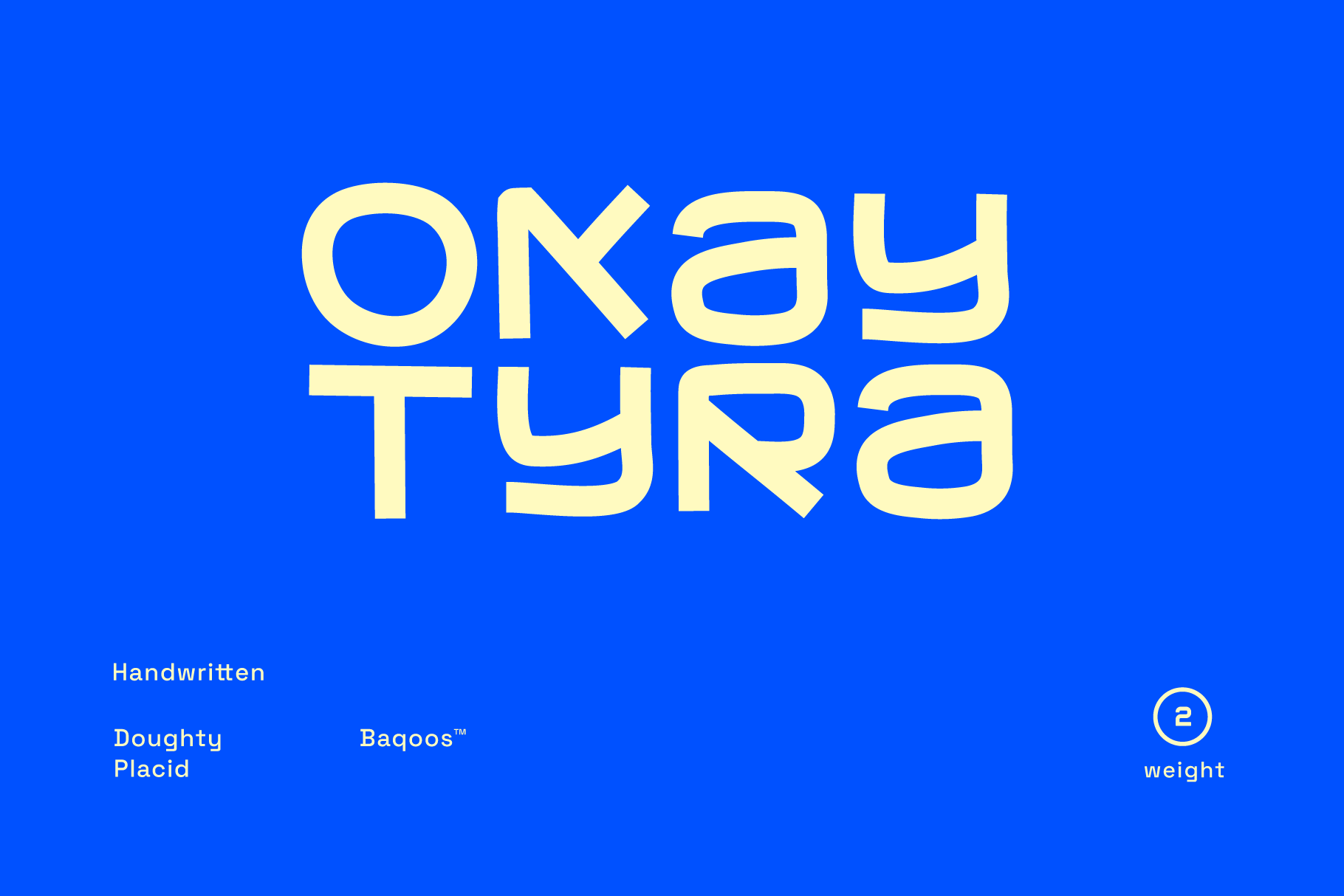
Okay Tyra Font
Okay Tyra is a doughty placid handwritten unicase typeface apt for headline, editorial, branding, packaging, printed materials and typographic applications. 200+ glyphs including punctuation and numerical.